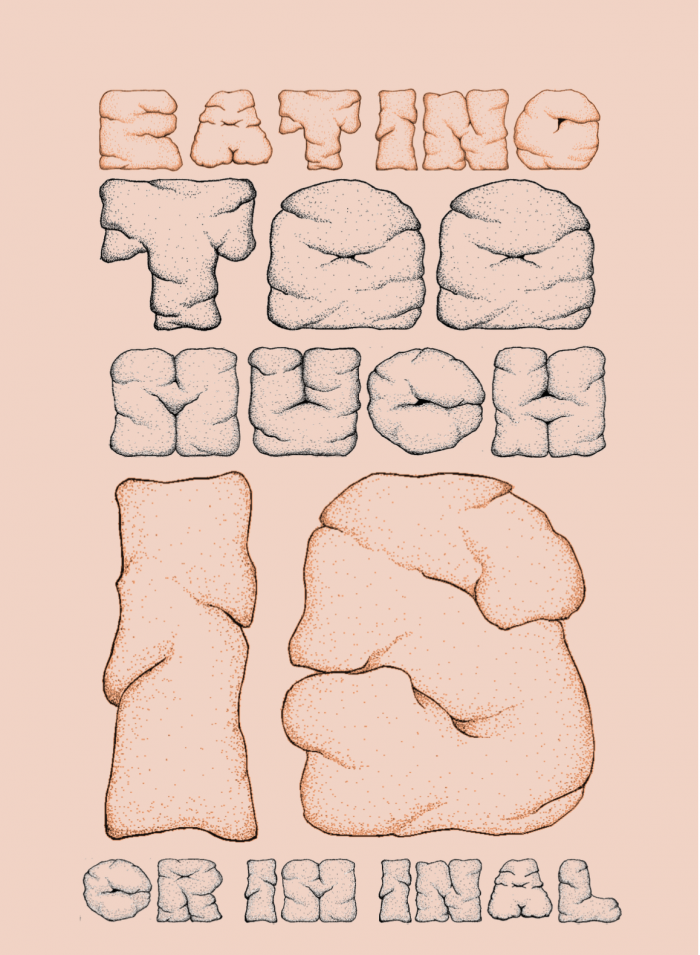
Damn this looks insane, very well done! 10/10
Astonishing!!
Great observation and wonderful adaptation! Those chubby glyphs have more unruly proportions than Beryl Cook's or Fernando Botero's people; they remind me a little of muscle areas in 'Tantalus' by Hendrik Goltzius. Well  deserved 10/10
what amazes me the most is the great eye for detail that was put into creating depth perception with the shading effect.
Brilliant. The kerning is a big issue in the sample.
@Rob: Yea but the kerning feature in the FS editor becomes pretty much useless at this grid dimensions
And making use of negative side bearing is only fixing this to a certain amount.
The detail in this is absolute wonderful - those are some thiccc letters (and that’s with 3 cs intentionally). Amazing idea, brilliantly executed.
Checking for stray bricks (but none seen) in largest font preview window I think the "I" might benefit from moving towards the blue vertical line ("J" might also move just a tad?). Congratulations on the TP !
WOW! This took a lot of time and effort to create... Nice one!
Squishy!
Kind of disgusting
Good Font, But I Think It Should Support Lowercase Characters And Punctuation.
very goood fontsuction i- thank u much (thumbs up emoji)
Y'all wanna call this font "Lancer" and call it day?
Phat! The C and G look really similar to the O and thus affect readability, but great shading work on your letterforms and an awesome debut of your first fontstruction!
GIMME LOWERCASE LETTERS! GIMME MORE GLYPHS! MORE CHARACTERS! YYYYYYY
Nice Job, very Creative...
So Cool! <3
SO AWESOME